Enhance your creative projects with this curated selection of luxury typefaces that embody grace, sophistication, and timeless style. These fonts are perfect for high‑end branding, editorial layouts, premium invitations, and any design that calls for polished, elegant typography.
Ausle Font
Ausle is an elegant serif font with a modern, luxurious feel. Featuring stylish alternates and ligatures, it’s perfect for creating sophisticated, personalized designs.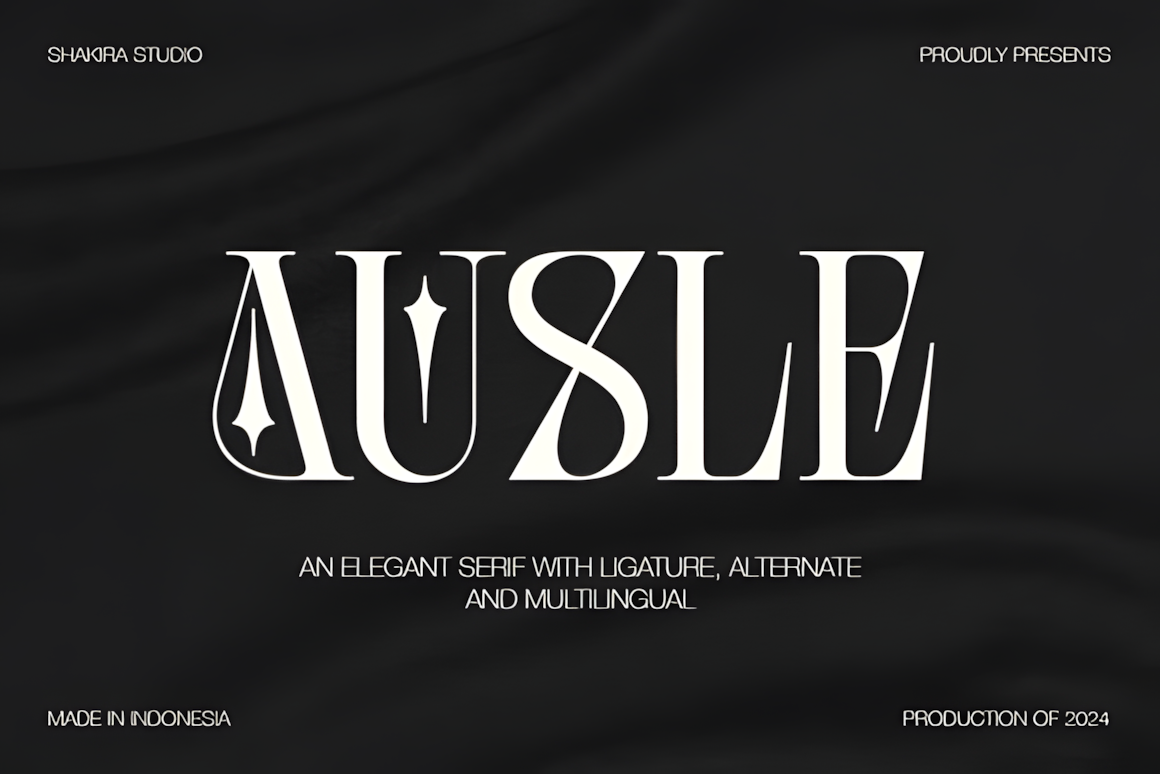
Mocca Font
Mocca is a sleek sans serif font inspired by minimalist design, ideal for templates, brochures, branding, logos, invitations, and elegant creative projects.
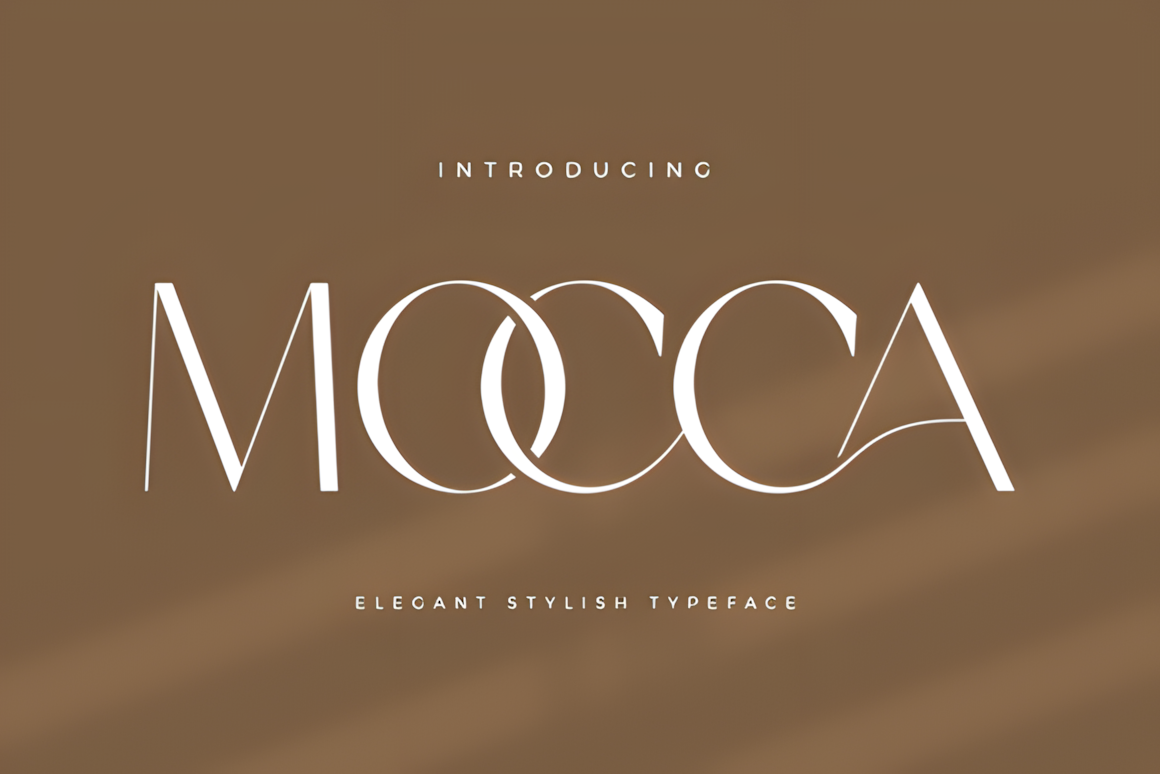
Sturoc Font
Sturoc is a unique sans serif font with a modern, versatile design—perfect for elevating any creative project.
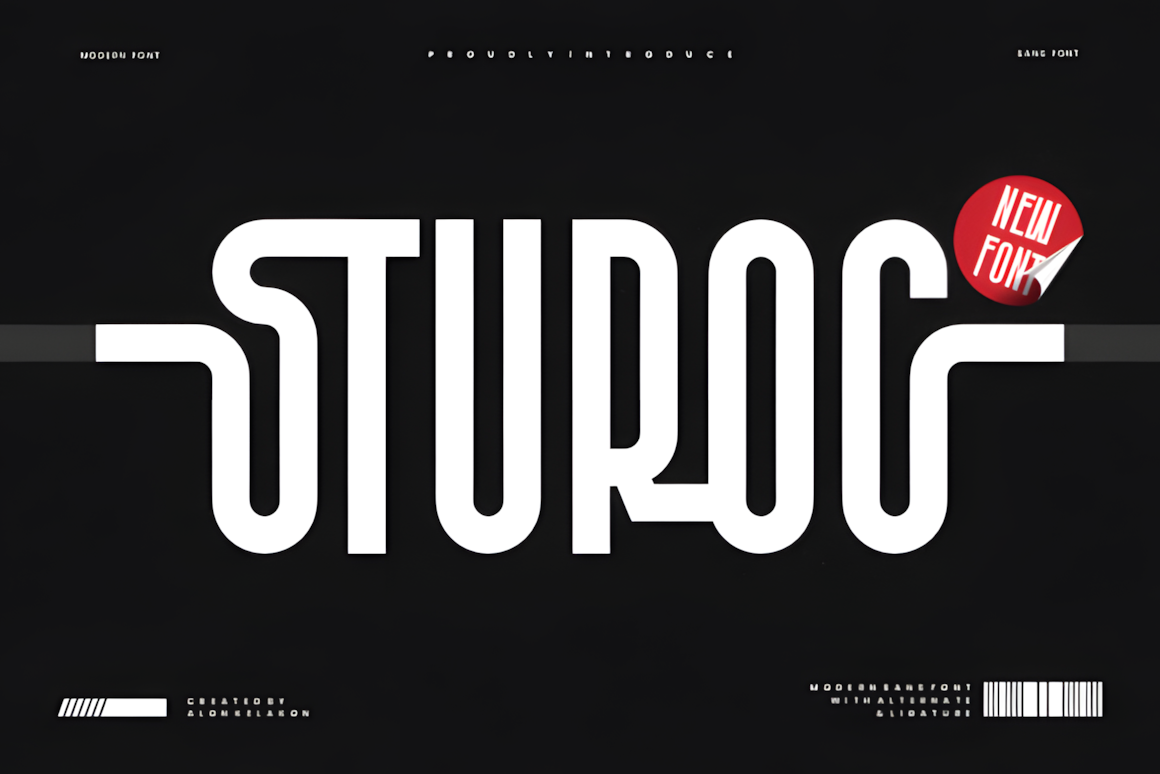
Qmico Font
Qmico is an elegant font blending Art Deco charm with modern minimalism. Its sleek lines and refined strokes make it ideal for branding, editorials, and web design, offering both style and clarity.
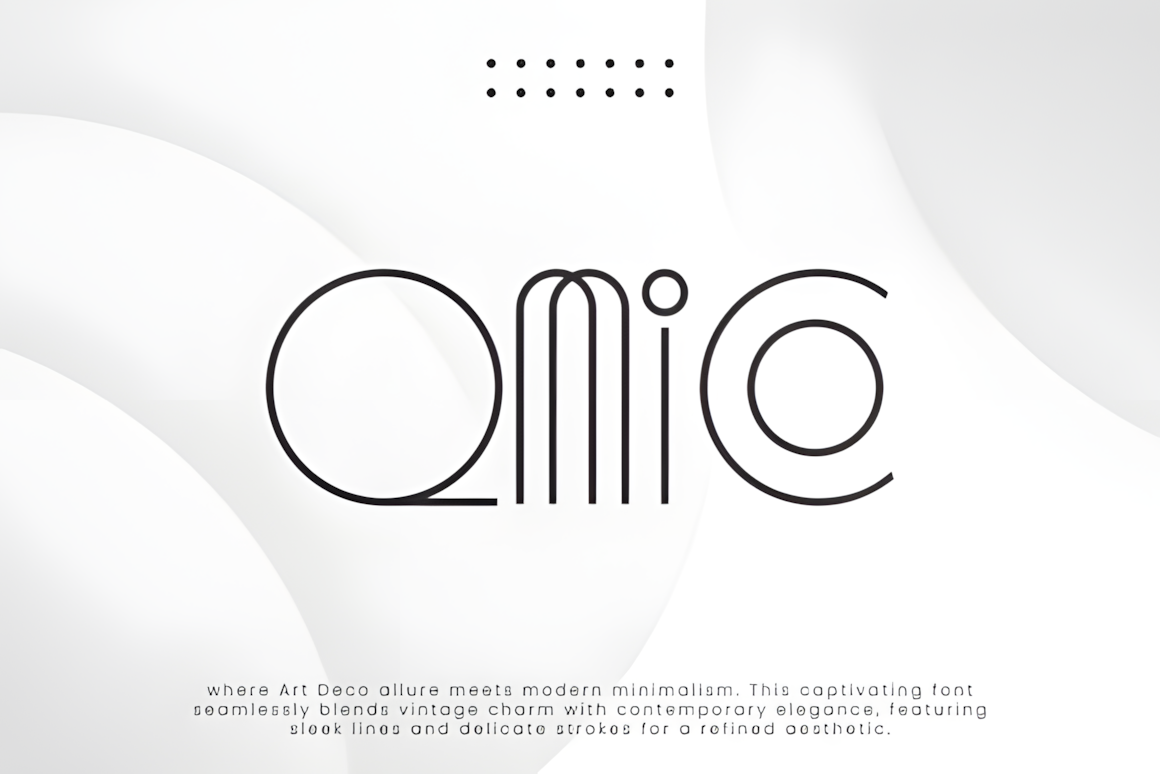
Acor Font
Acor Extended is a sleek, modern sans serif font with an extended design, perfect for futuristic projects and sci-fi branding that demand a clean, innovative look.
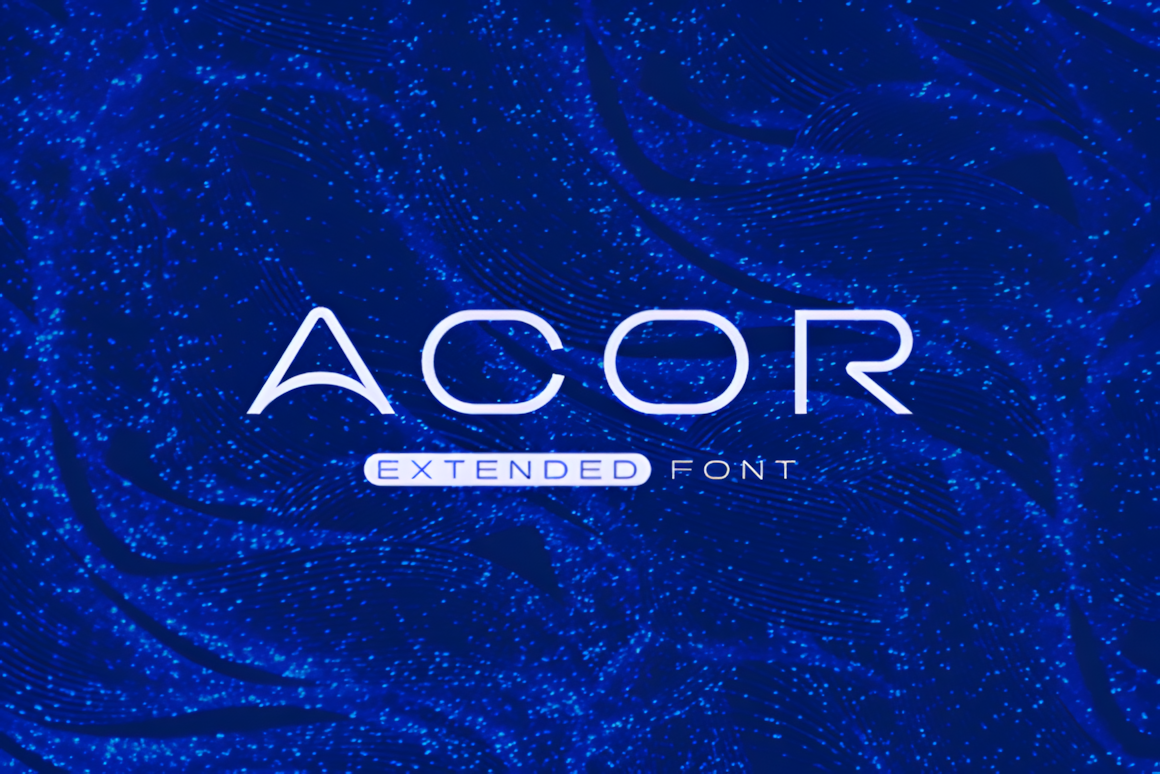
Bodda Font
Bodda is a clean, modern sans serif font with balanced proportions and geometric structure. Ideal for branding, editorial layouts, web design, packaging, and versatile design projects.
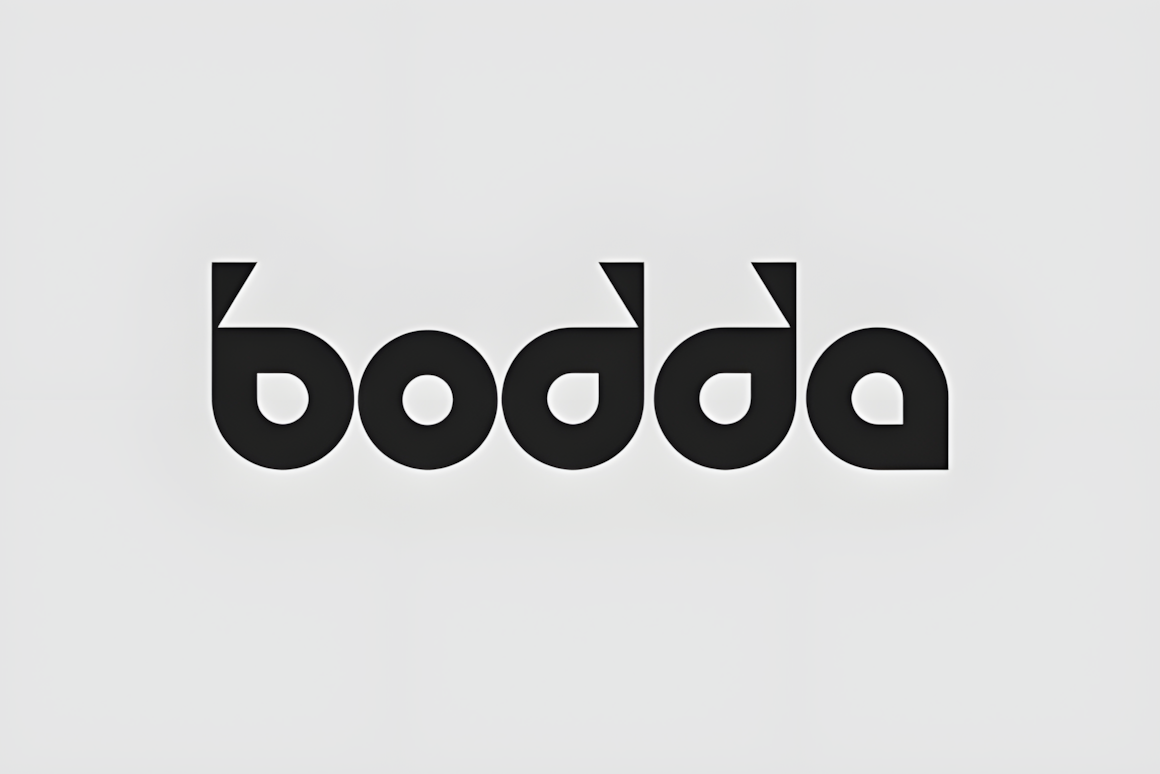
Eqlora Font
EQLORA is a high-contrast, elegant serif font with graceful curves and a confident structure, ideal for fashion branding, editorial layouts, packaging, and premium design projects.
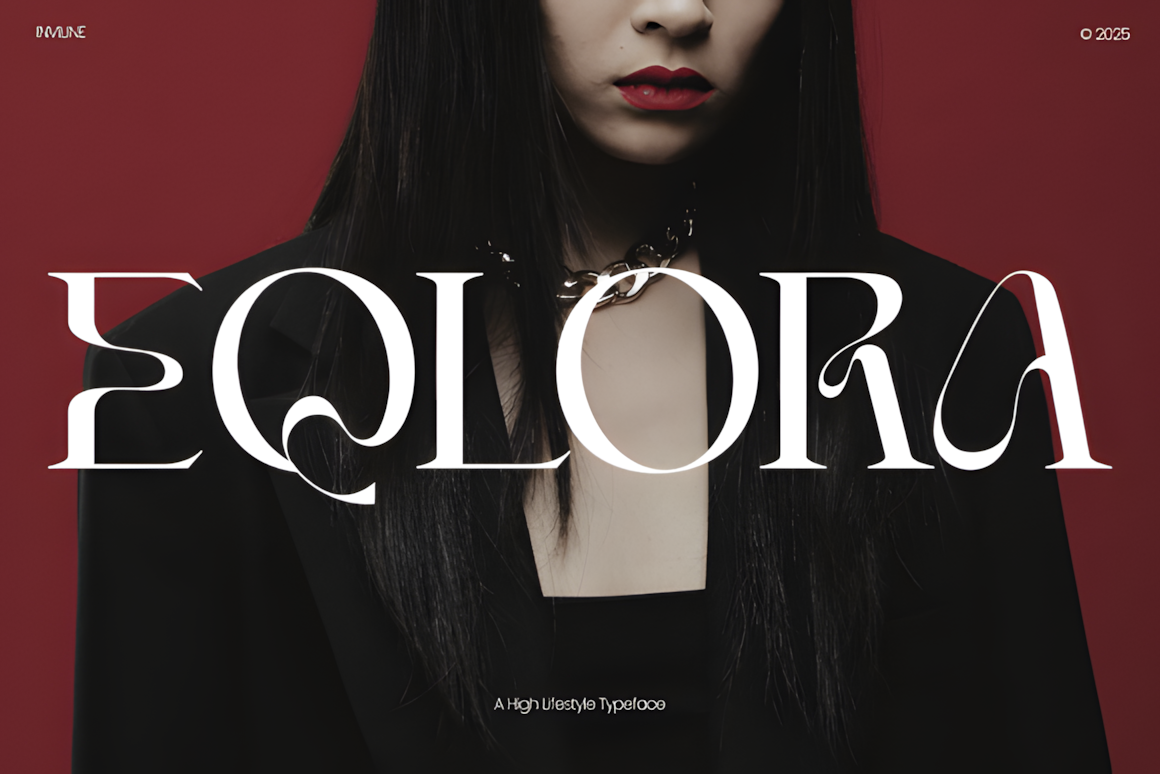
Velana Font
Velana is an elegant serif font combining modern style with classic charm. Ideal for branding, editorials, and luxury designs, it comes in Regular and Oblique for versatile use.
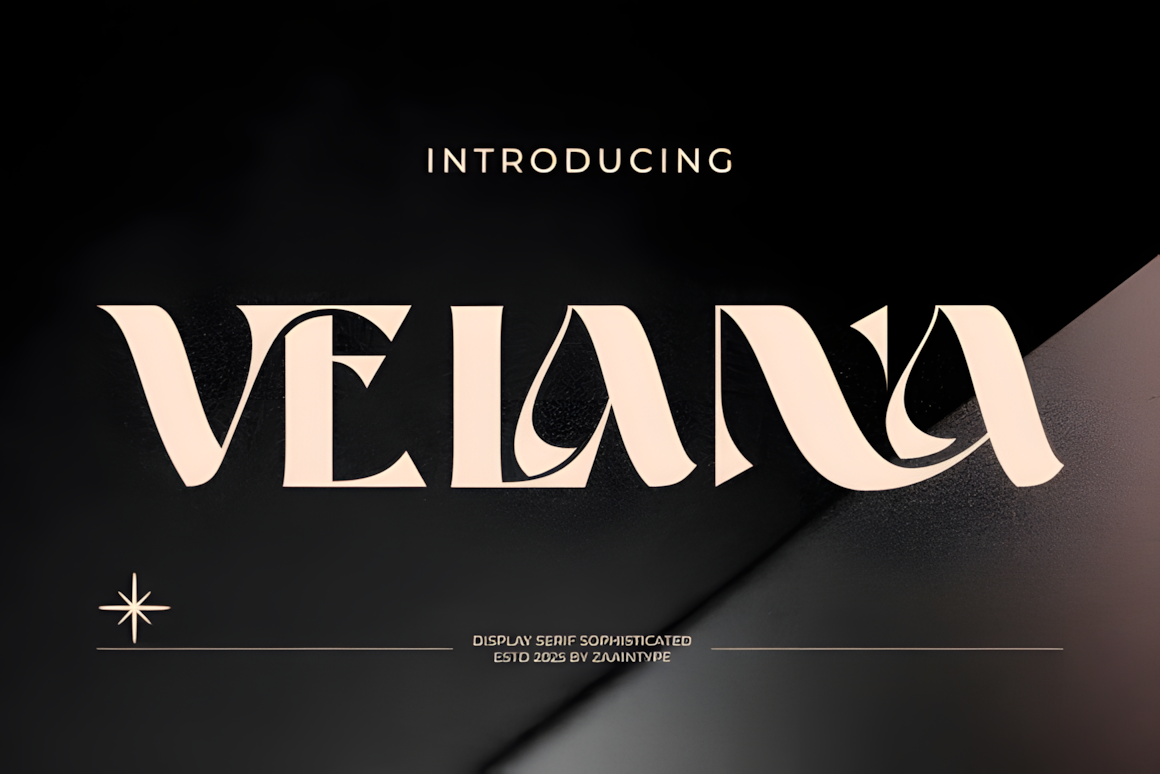
Mattegi Font
Mattegi is a stylish ligature typeface inspired by minimalist design, ideal for templates, brochures, videos, branding, logos, and versatile creative projects.
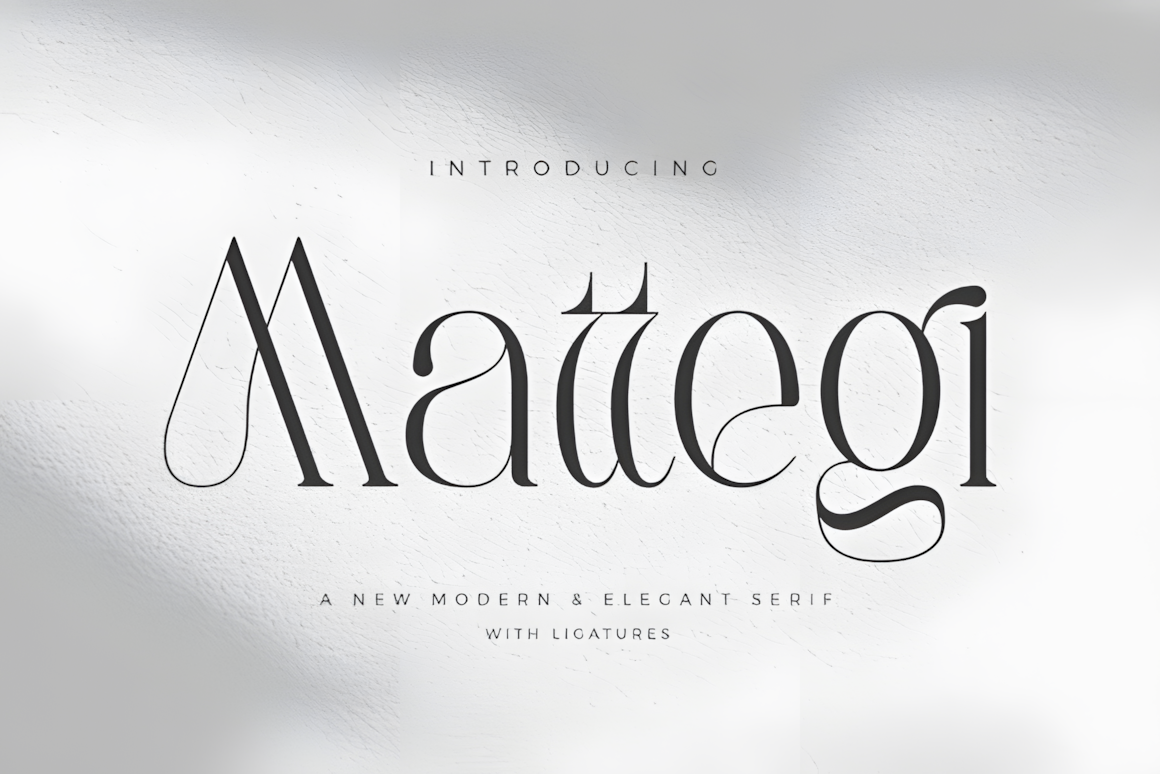
Bekky Font
Bekky is a contemporary sans serif font with clean lines, smooth curves, and balanced spacing—perfect for branding, editorial layouts, packaging, web design, and modern advertising.
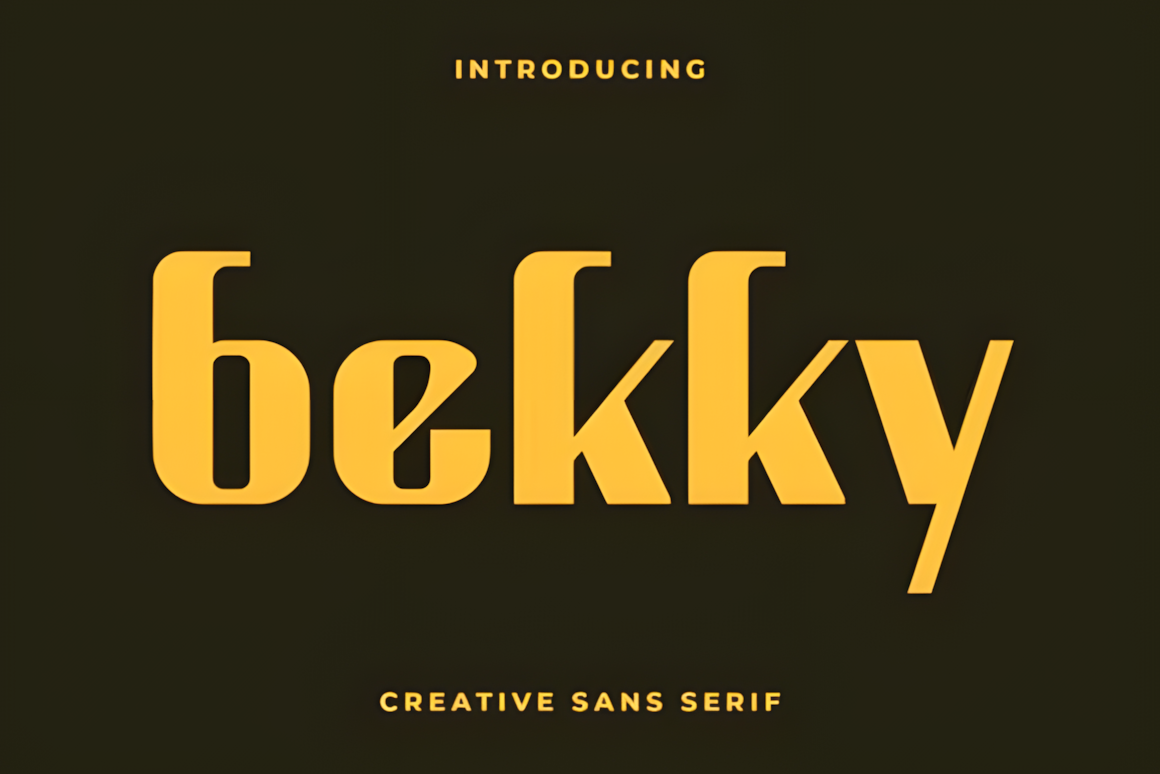
Mosca Laroke Font
Mosca Laroke is a stylish display serif font with a modern, luxurious touch and romantic inspiration. Perfect for logos, branding, posters, invitations, packaging, and versatile design projects. PUA encoded for full glyph and swash access.
Timeless Elegance & Premium Appeal
This luxurious collection of fonts offers refined character, clarity, and visual harmony. Each typeface elevates your design with sophistication, helping you create work that stands out with understated beauty and enduring style.